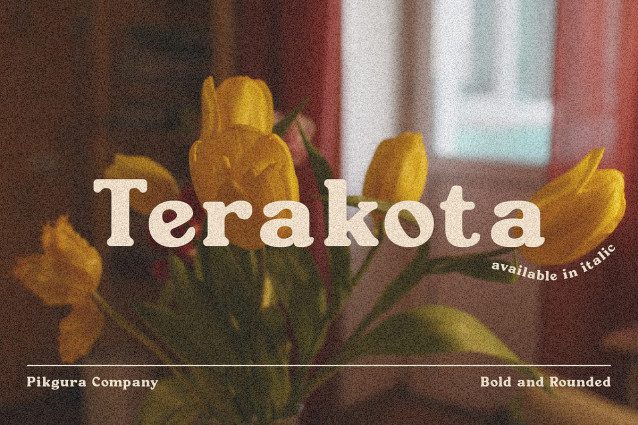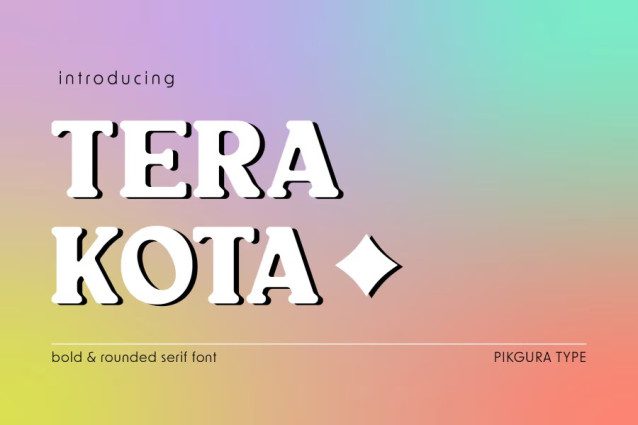
Terakota Font
Terakota Font has a bold and rounded style the really nice font for those who want to make a statement without being too flashy. With its features, you can easily create a cohesive look for your brand or project. Plus, its simplicity makes it easy to read and comprehend, so you can be sure your message is getting across loud and clear.